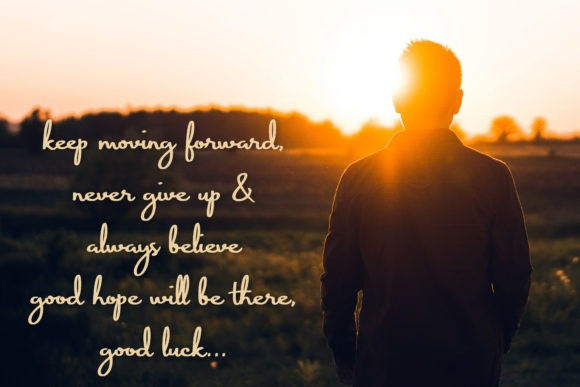
Indian Roller Script Font
Indian Roller is an authentic handwritten font that looks incredibly stylish yet simple. It has a clean, strong and smooth vibe, and it will be a hit for any design that you wish to create.